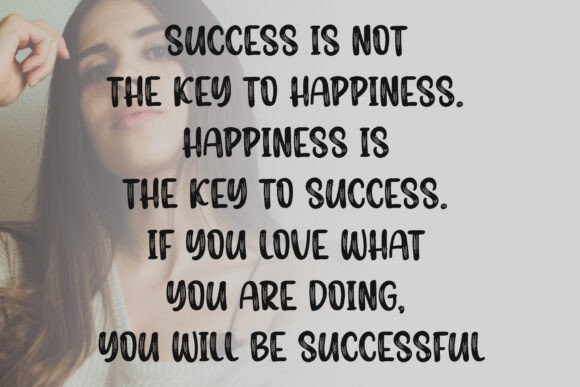
Sparkles Handwriting Font
Sparkles Handwriting is a lively and artistic brush font with a playful twist! Featuring fun hand-drawn strokes and stylish inline details, this font brings a dynamic and creative touch to any design. Perfect for DIY crafts, posters, scrapbooking, stationery, and branding projects that need a personal yet bold flair. It’s handwriting with a splash of sparkle and a whole lot of personality!